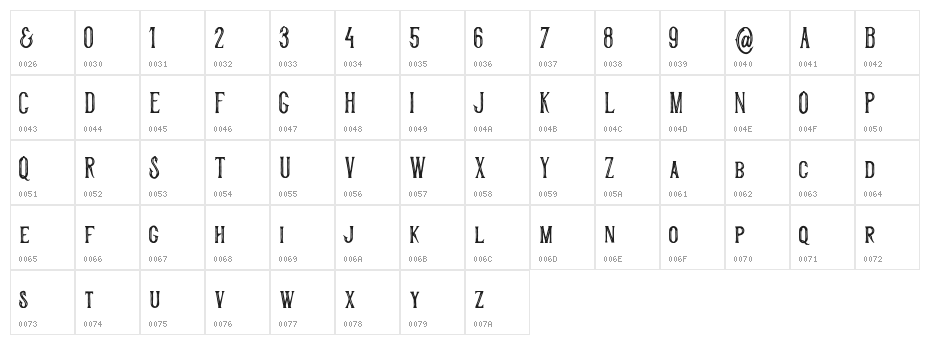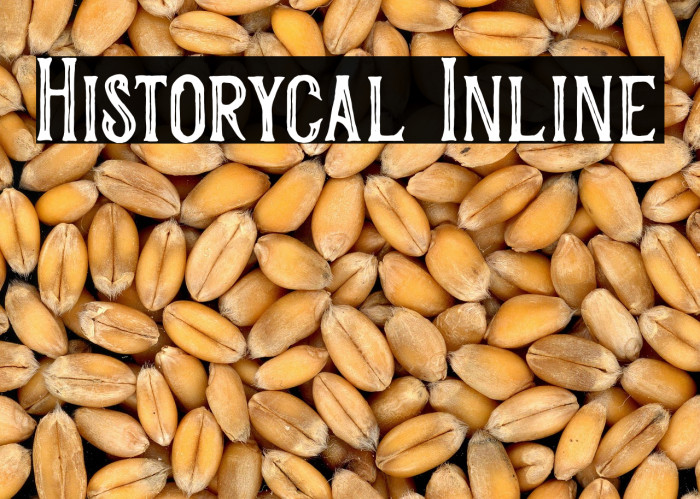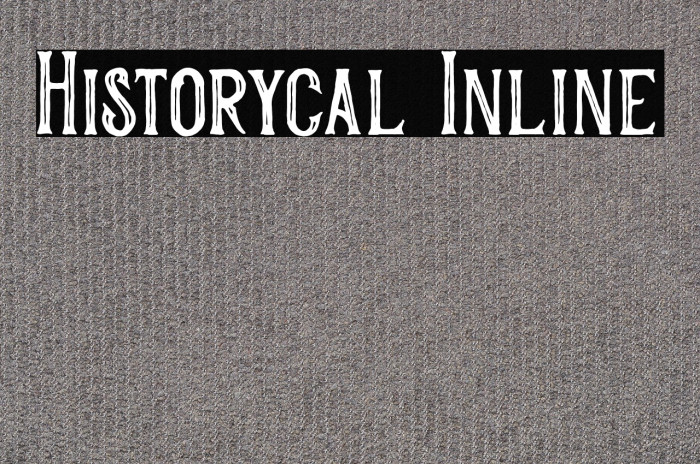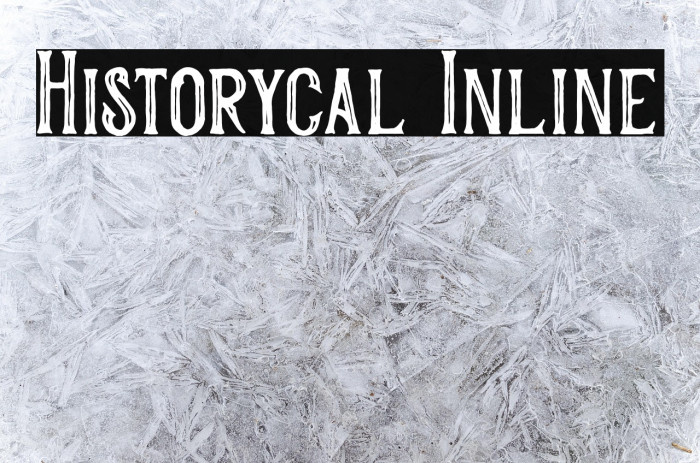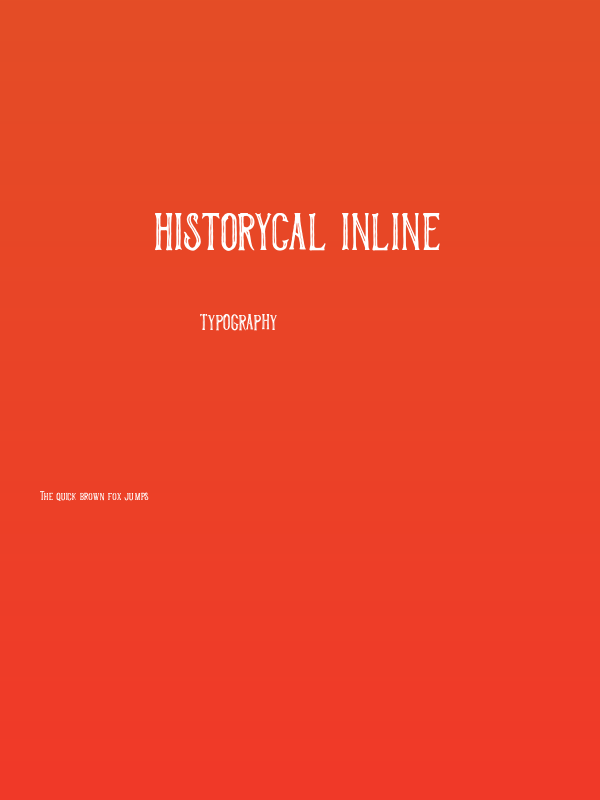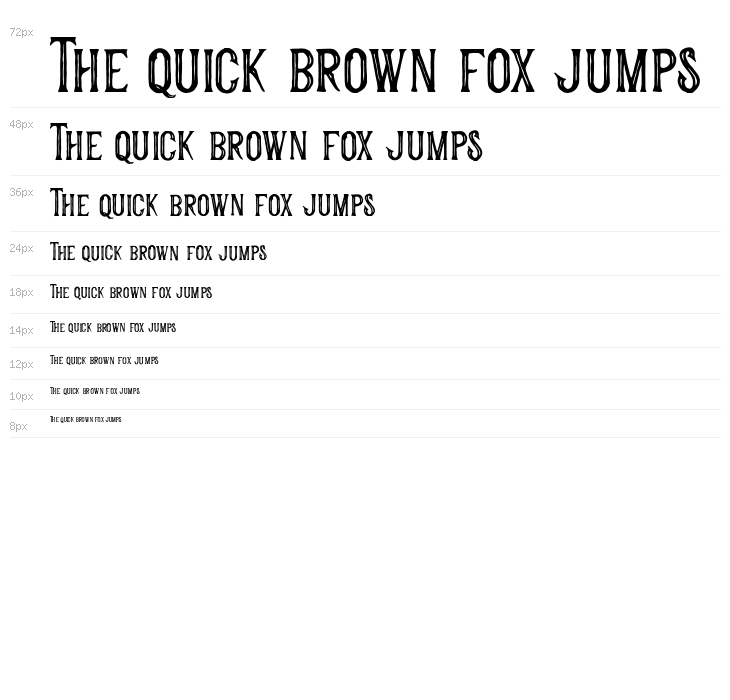
Historycal Inline Font
Historycal Inline Description
This font features a distinctive vintage style with an inline design that gives it a unique, historical appearance. The characters are bold and slightly condensed, with a hand-drawn quality that adds to its charm. The uppercase letters have a strong presence, while the lowercase letters maintain a consistent style. The numerals are well-integrated, matching the overall aesthetic. The ampersand is particularly ornate, showcasing the decorative nature of the font. This typeface is perfect for projects that require a touch of nostalgia or a retro feel.